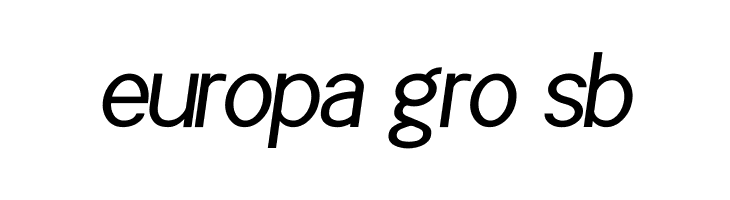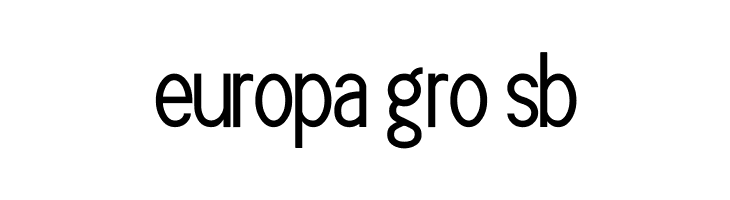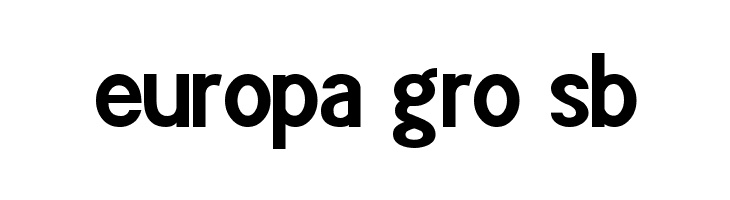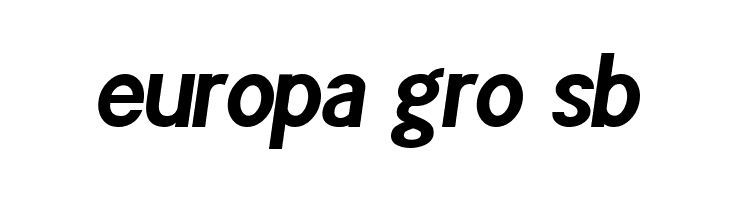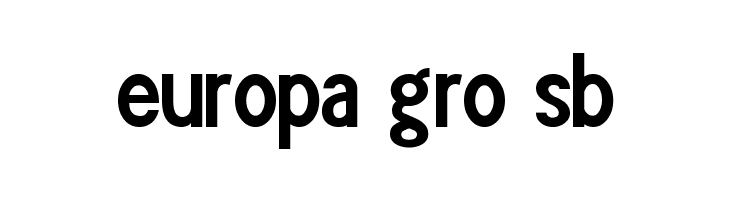
A modern, semi-bold italic sans-serif font with a clean and dynamic style.
A modern, condensed, and italic sans-serif font with a sleek design.
A bold, expanded sans-serif font with a modern and impactful style.
A modern, ultra-condensed sans-serif font with a sleek and minimalist design.
A modern, condensed sans-serif typeface with a clean and professional look.
A modern, semi-bold sans-serif font with excellent legibility and balance.
A modern, bold, condensed sans-serif typeface with a clean and balanced design.
A bold, italic, and condensed sans-serif font with a modern and sleek appearance.
A bold, ultra-condensed sans-serif font with tight spacing and a modern look.
A modern, light sans-serif font with geometric precision and clarity.